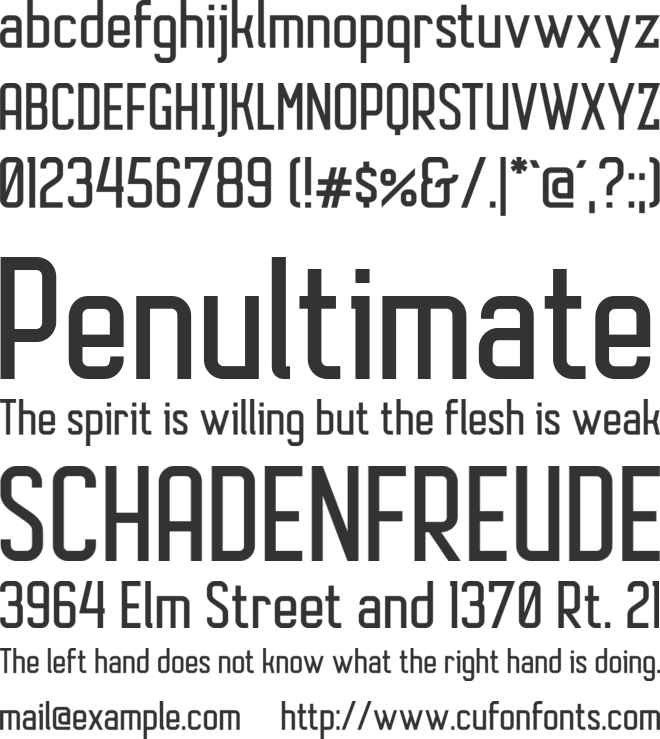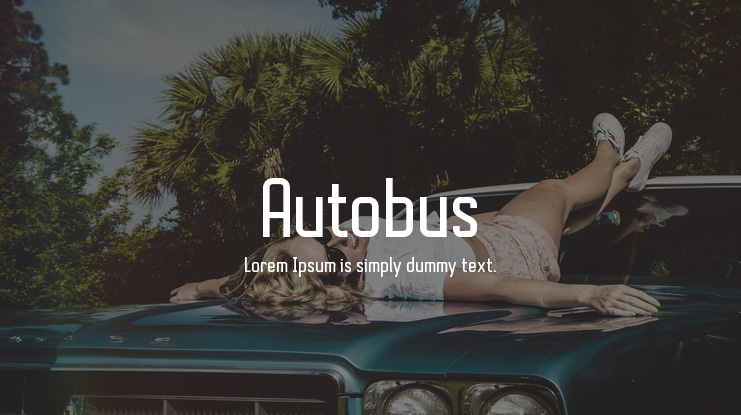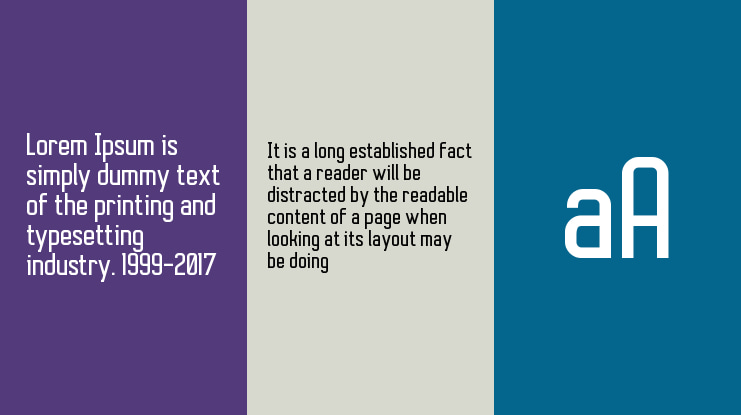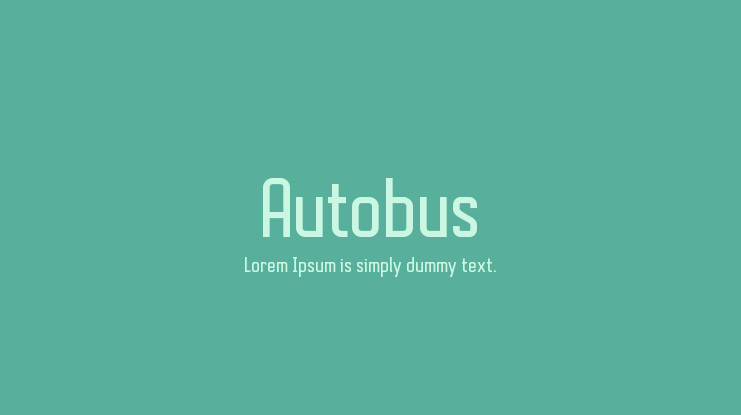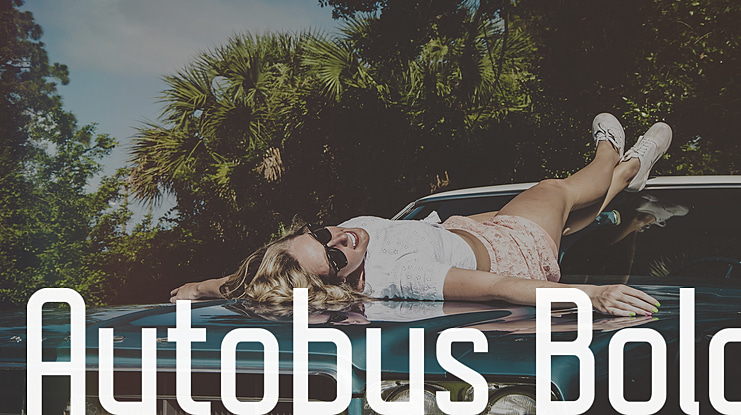
Autobus Font
Autobus is a heavy duty sans serif with a strong and technical look.
Four weights and multilingual support provide the versatility you need for your design projects.